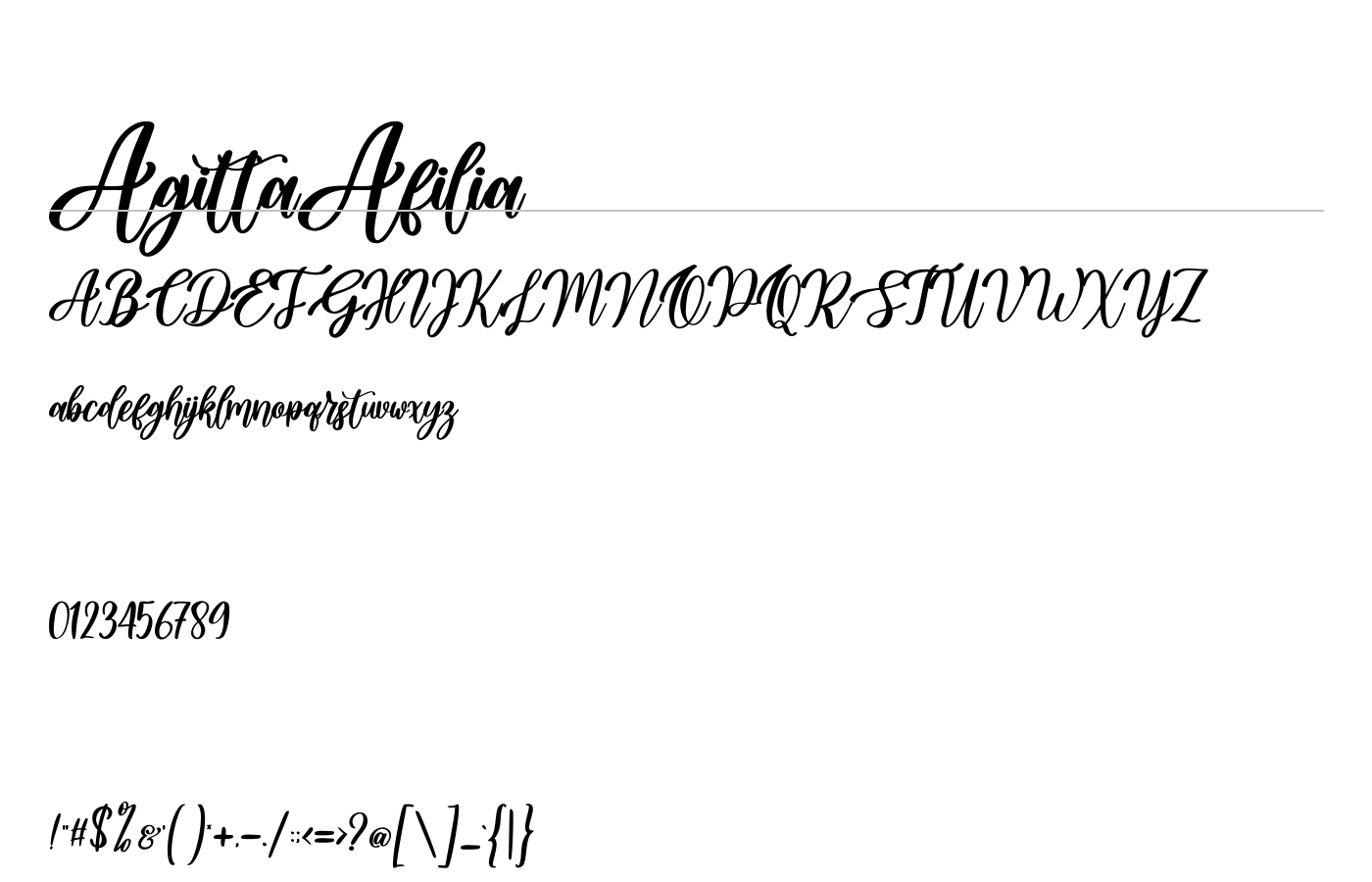
AgittaAfilia is a stylish script font with elegant, flowing letterforms that convey a sense of sophistication and charm. Its delicate stroke contrast, smooth curves, and distinctive calligraphic details make it perfect for wedding invitations, branding, and editorial design where a refined, graceful look is desired. This font works well for headlines and decorative uses, adding a touch of luxury and personality to visual projects.
AgittaAfilia Font
About AgittaAfilia Font